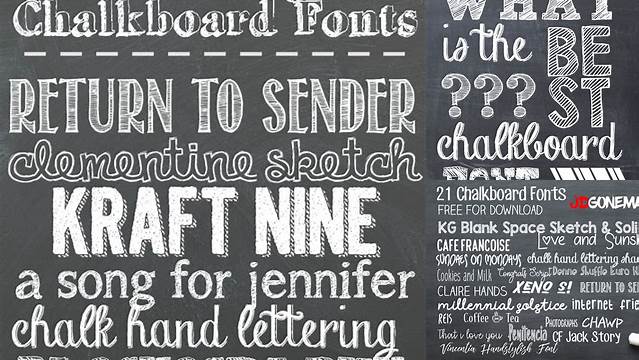
Free Chalkboard Font Downloads From Dafont: Your Ultimate Guide
Hey there, design enthusiasts! Are you looking to add a touch of rustic charm or a vintage vibe to your projects? Well, you're in the right place! Today, we're diving headfirst into the wonderful world of chalkboard fonts, and more specifically, where to find the best free chalkboard fonts for download on dafont. Whether you're a seasoned designer, a newbie, or just someone who loves cool fonts, this guide is your golden ticket to spicing up your designs. Let's get this show on the road, shall we?
What Makes Chalkboard Fonts So Awesome?
Alright, guys, before we jump into the nitty-gritty of downloading, let's chat about why chalkboard fonts are so darn popular. These fonts are like the cool kids of the font world. They've got that handwritten look, reminiscent of old school chalkboards in classrooms or the stylish menus in your favorite coffee shop. This aesthetic gives off a feeling of warmth, approachability, and authenticity that can be hard to beat. Plus, they're super versatile! You can use them for everything from creating eye-catching social media graphics and invitations to designing logos and website headers.
The beauty of chalkboard fonts is in their ability to evoke a sense of nostalgia while still feeling fresh and modern. They can instantly inject a handmade feel into your work, making it feel more personal and engaging. Think about it: a font that looks like it was lovingly written with chalk can make your message feel more genuine and connect with your audience on a deeper level. In a world dominated by sleek, clean digital designs, chalkboard fonts offer a welcome contrast, providing a visual texture that captures attention. They’re like the vintage denim jacket in your design wardrobe – always in style and always ready to add that touch of character. Furthermore, these fonts come in various styles. Some mimic the bold strokes of thick chalk, while others offer a more subtle, delicate look. You can find fonts that look like they were written by a teacher, an artist, or even just someone doodling on a napkin. This variety means you can always find the perfect chalkboard font to match your project's mood and tone. So, whether you're aiming for a fun, playful vibe or something more sophisticated, the right chalkboard font can help you achieve it. Plus, using a well-chosen font can elevate your brand identity, making your designs stand out from the crowd and leaving a lasting impression. So, the next time you're looking to add a touch of personality and charm to your design, remember the magic of chalkboard fonts – they're your secret weapon!
Where to Find Free Chalkboard Fonts: Your Best Bet - dafont
Okay, so you're sold on the magic of chalkboard fonts. Now, where do you actually get them? One of the best places to start your font-hunting adventure is dafont. Dafont is like the font-lover's paradise, offering a massive library of fonts, including a fantastic selection of free chalkboard fonts. It's easy to navigate and has a simple search function. When you're on dafont, just type in 'chalkboard' or related keywords like 'chalk,' 'handwritten,' or 'vintage' in the search bar, and boom, a whole array of options will pop up before your very eyes.